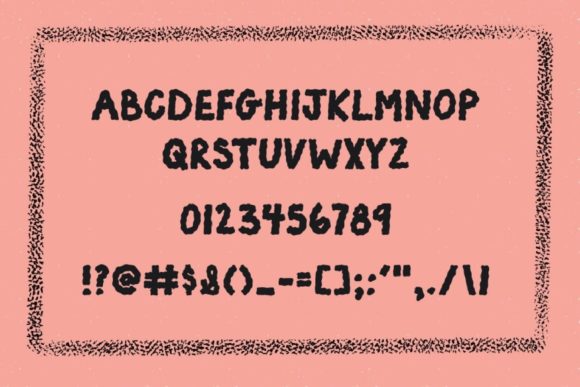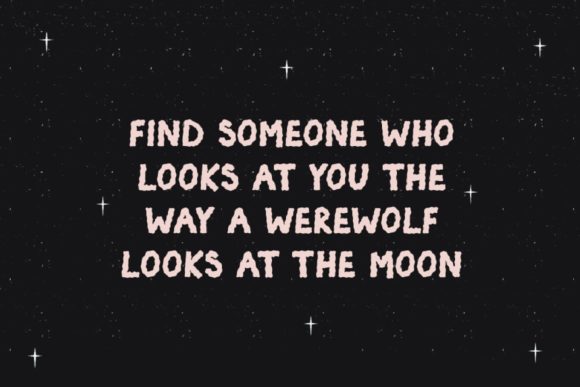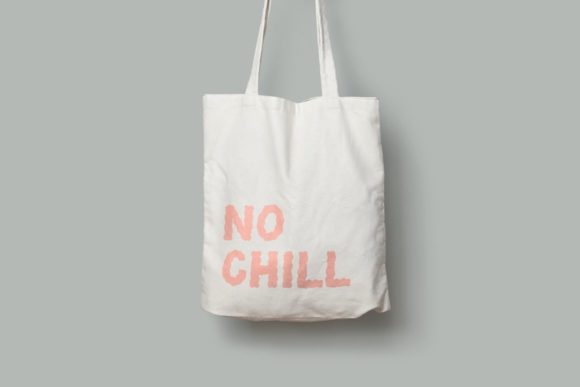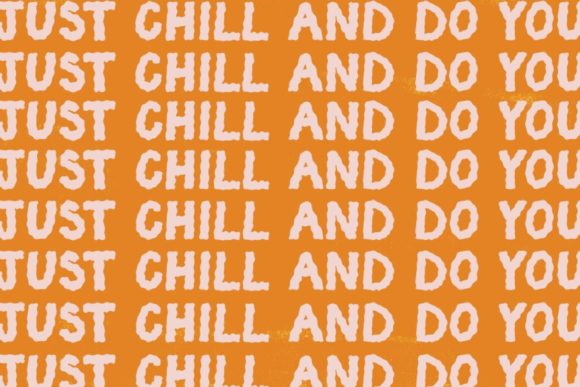
Introduction to No Chill Font Font
Fonts play a crucial role in design, and the No Chill Font font is a typeface that brings both character and versatility to any project. Whether you’re working on a branding project, a website, or a print design, the No Chill Font font offers a unique style that can elevate your work.
No Chill is a wavy and cool display font.
It works great on various design ideas related to cartoons, posters and more The only limit is your imagination.
Key Features of No Chill Font Font
Why Choose No Chill Font Font?
The No Chill Font font is more than just a typeface – it’s a design tool that helps you communicate your message with style and clarity. Its unique character set and versatile design make it suitable for a wide range of applications, from elegant invitations to bold headlines.
With its carefully crafted letterforms and balanced proportions, the No Chill Font font ensures readability and visual appeal across all mediums.
What makes No Chill Font font special?
The No Chill Font font stands out with its unique design, exceptional readability, and versatility across various design applications.